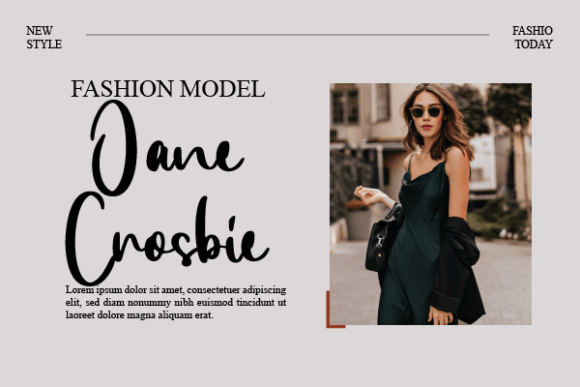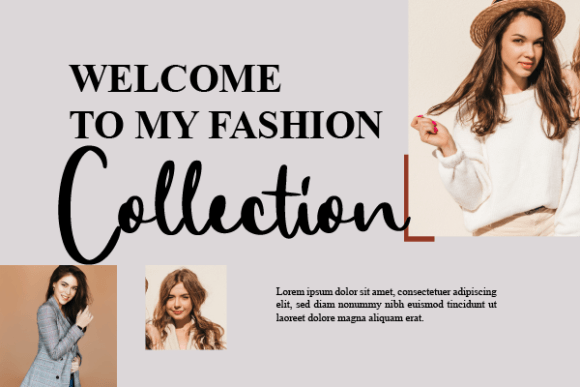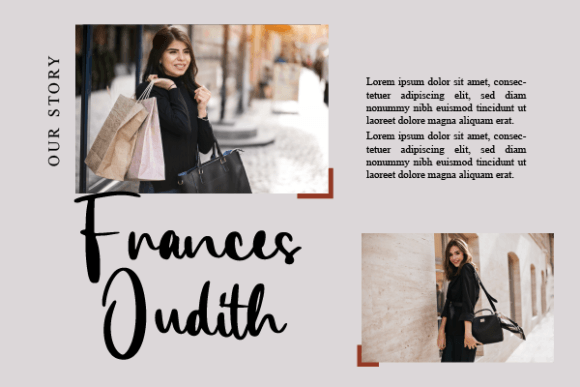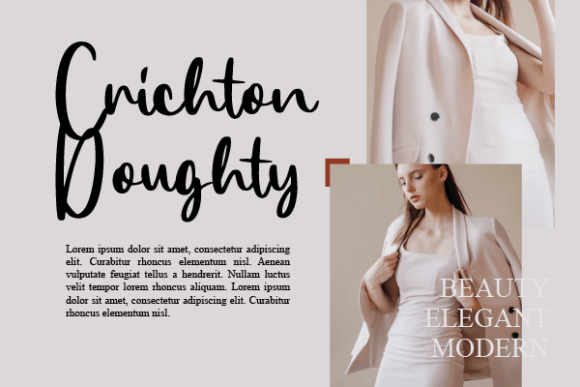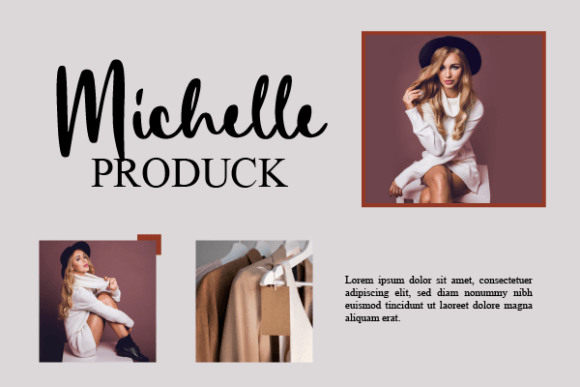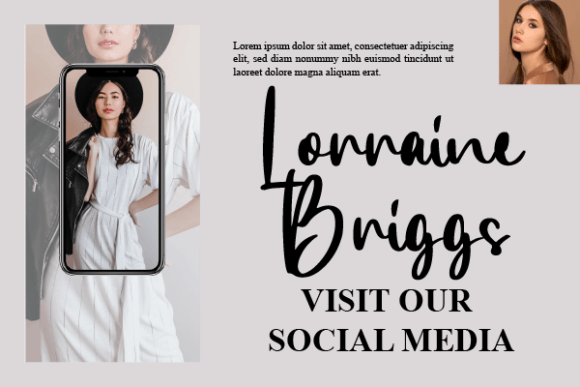
Discover Your New Favorite Font: Arwen Christine Font
As designers, we’ve all been there – staring at a blank page, unsure of where to start. The cursor blinks, taunting us with its silence. But then, it happens – a spark of inspiration strikes, and our creative juices begin to flow. For those magical moments, we need a font that’s just as elegant and timeless as our vision. Enter the Arwen Christine Font, a beautiful, handwritten font that’s sure to captivate your audience.
With its flowing script and subtle flair, Arwen Christine Font is the perfect addition to any project. Whether you’re creating a wedding invitation, a children’s book, or a social media graphic, this font is sure to elevate your design to the next level. Its versatility and sophistication make it a valuable asset for designers of all levels, from beginners to pros.
Arwen Christine Font Key Features
- Font Family: Arwen Christine is a script font designed by Christine Evangeliou.
- Unique Characteristics: Features elegant, cursive script strokes and refined flourishes, adding a touch of sophistication and elegance to any design.
Arwen Christine Font Review
I recently had the chance to work with the Arwen Christine font, and I must say it’s an intriguing choice for any project. Here are my thoughts on its strengths and weaknesses.
- Unique aesthetic: Arwen Christine has a distinct, elegant feel that sets it apart from more common fonts.
- Legibility: Despite its ornate appearance, the font is surprisingly easy to read, even at smaller sizes.
- Support for various languages: Arwen Christine includes a wide range of language support, making it a great option for multilingual projects.
- Size limitations: While the font looks great at larger sizes, it can become too dense and difficult to read at smaller sizes.
- Lack of bold and italic variants: The font’s bold and italic styles are limited, which can make it harder to create emphasis and contrast in your design.
- Not ideal for body text: Arwen Christine is best suited for titles, headings, and other display text – it’s not the most suitable choice for large blocks of body text.
Overall, I think Arwen Christine is a great choice for projects where you want to add a touch of elegance and sophistication. However, it may not be the best fit for every project, especially those that require a lot of body text or need more flexible font styling options.
To get the most out of Arwen Christine, use it for titles, headings, and quotes. The font’s unique style and flair make it perfect for adding a touch of sophistication to your designs.
Arwen Christine is perfect for:
- Magazine and newspaper design
- Quote and typography design
What is the recommended font size for Arwen Christine?
The recommended font size for Arwen Christine is between 12pt and 24pt, depending on the design context. For body text, a font size of 14pt to 16pt is recommended, while for headings and titles, a font size of 20pt to 24pt is more suitable.